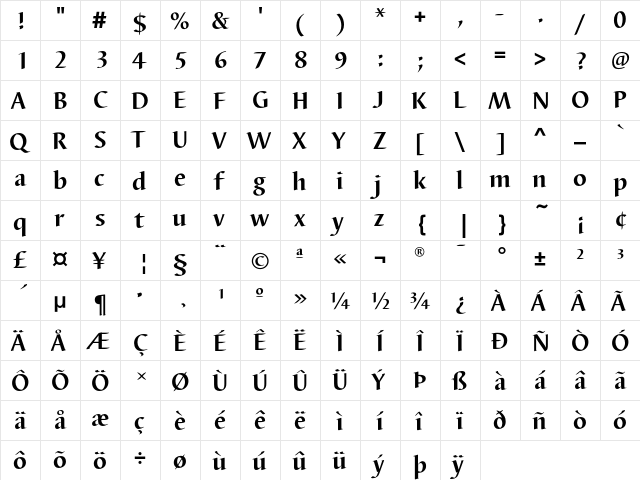
BarbedorEF Bold
Design Context for BarbedorEF Typeface
BarbedorEF offers clean, dependable letterforms without strong stylistic allegiance, making it a practical choice for designers who need flexibility. The heavy weight commands attention and anchors typographic hierarchies.